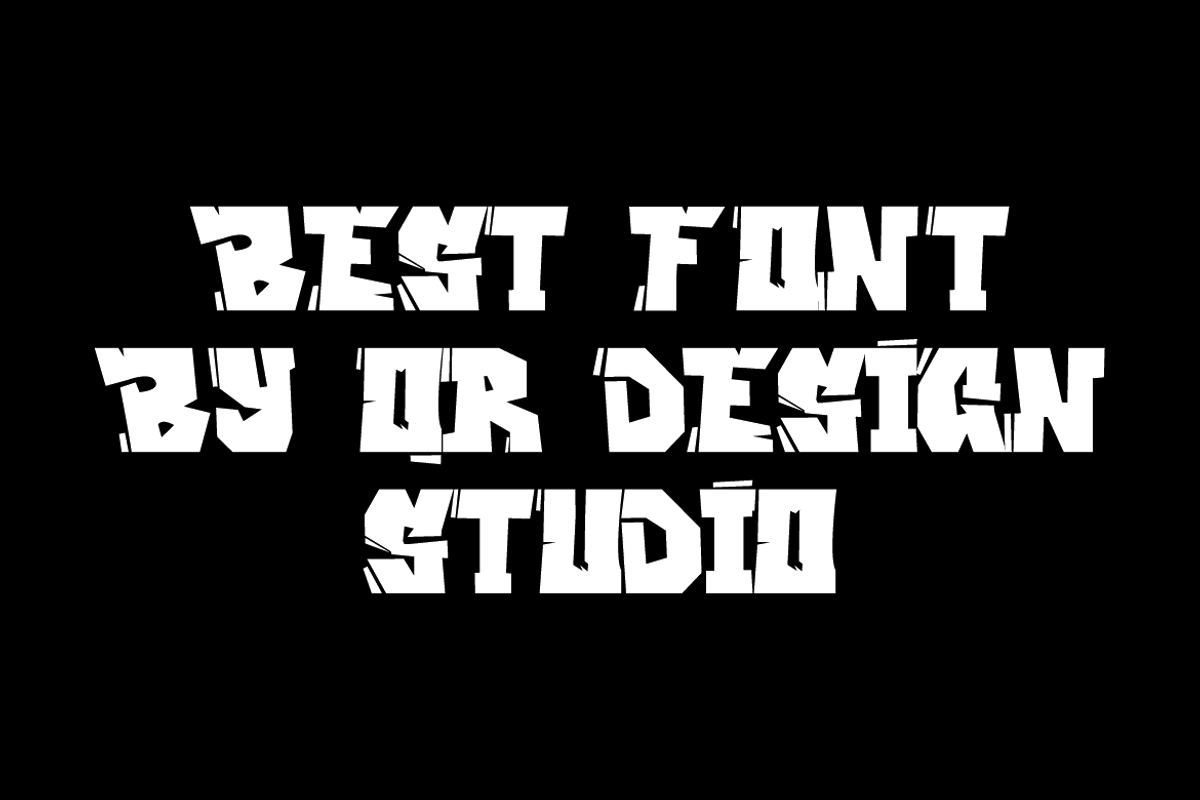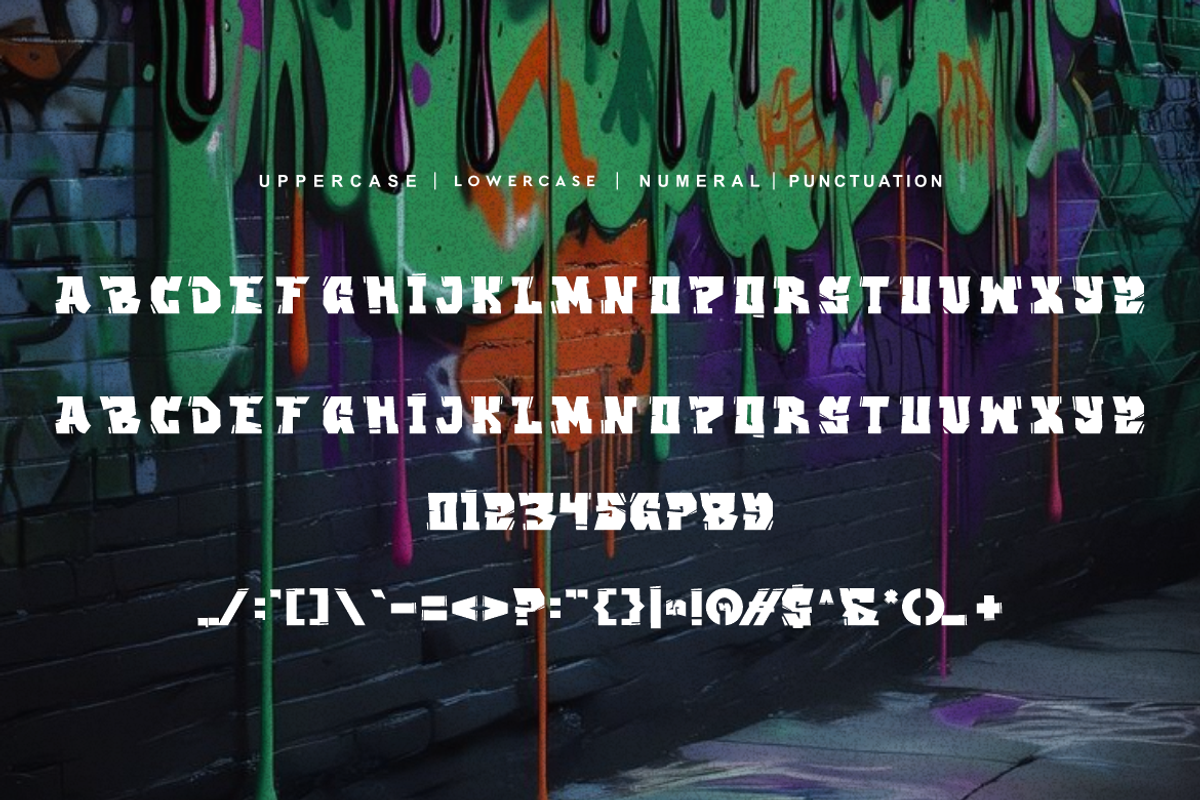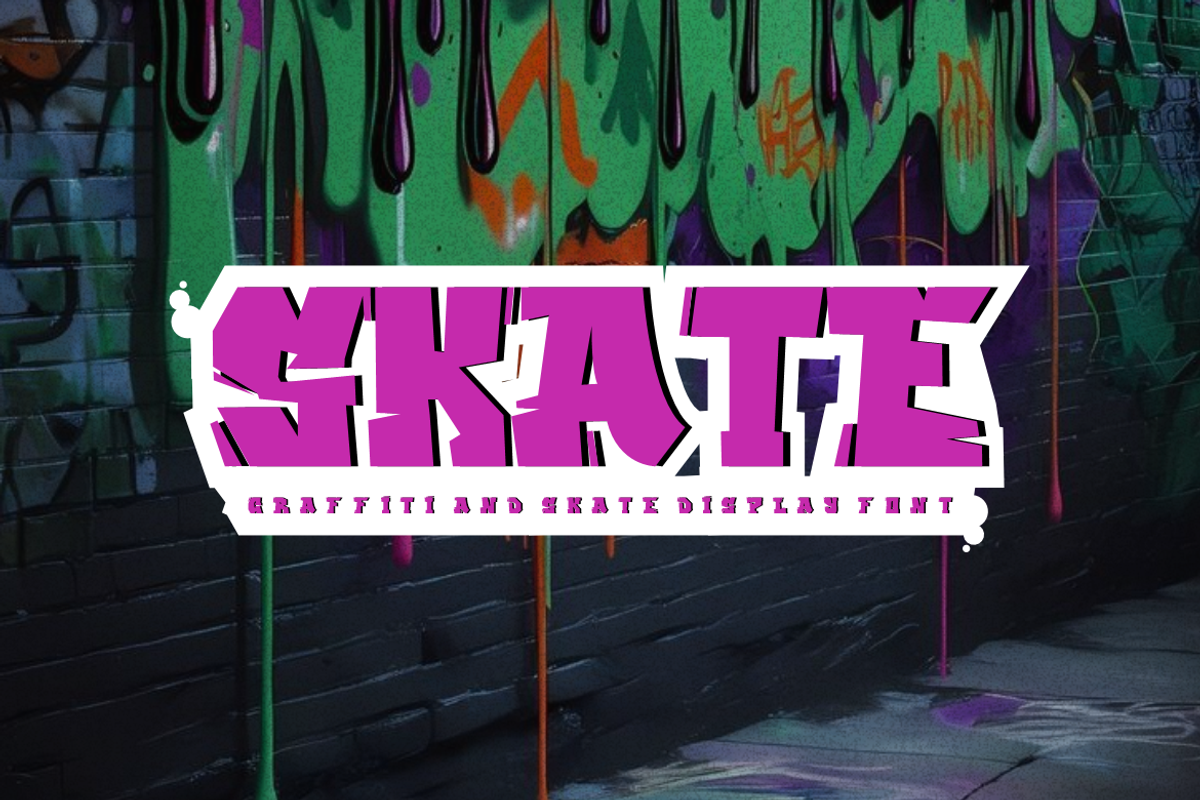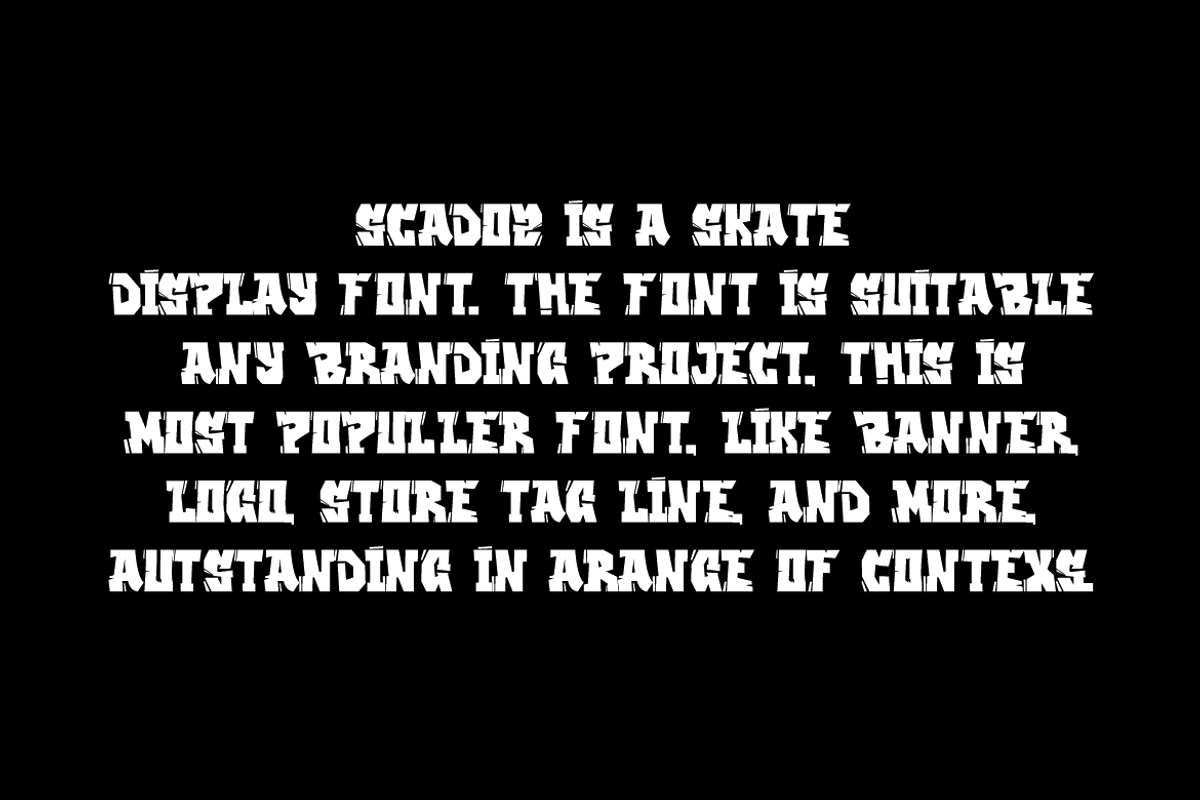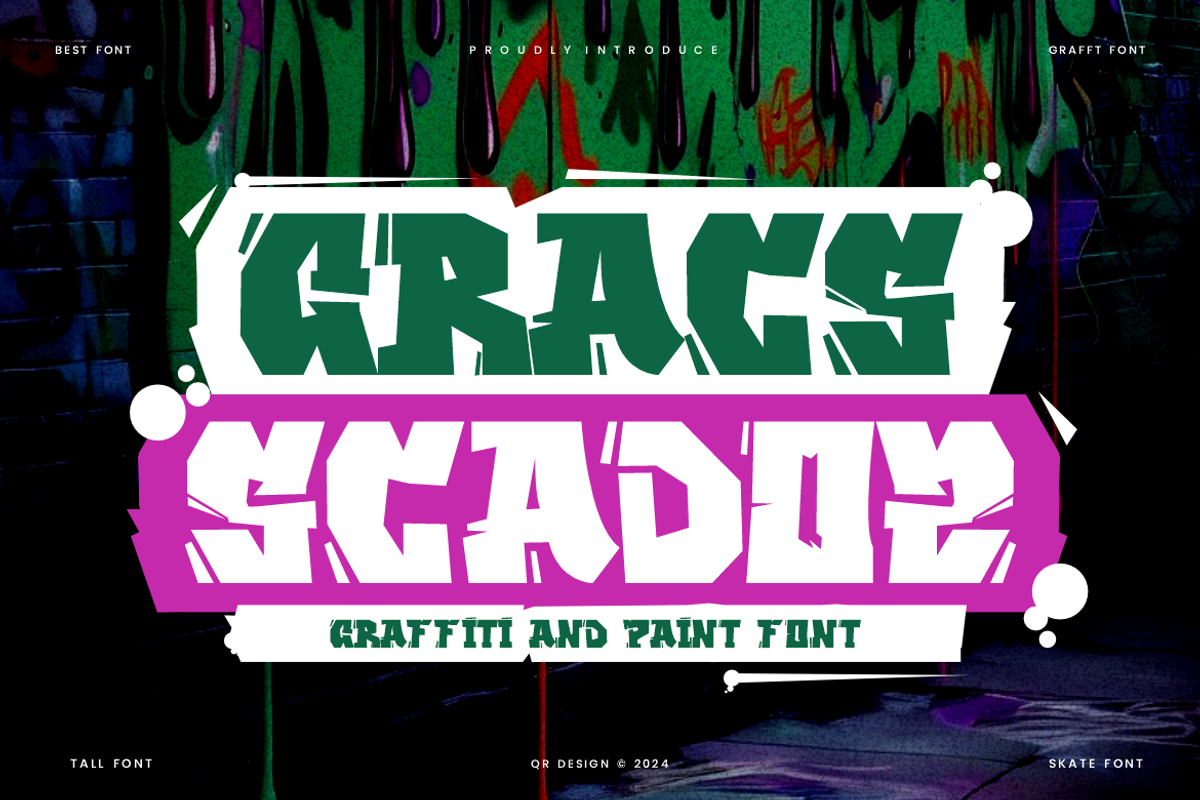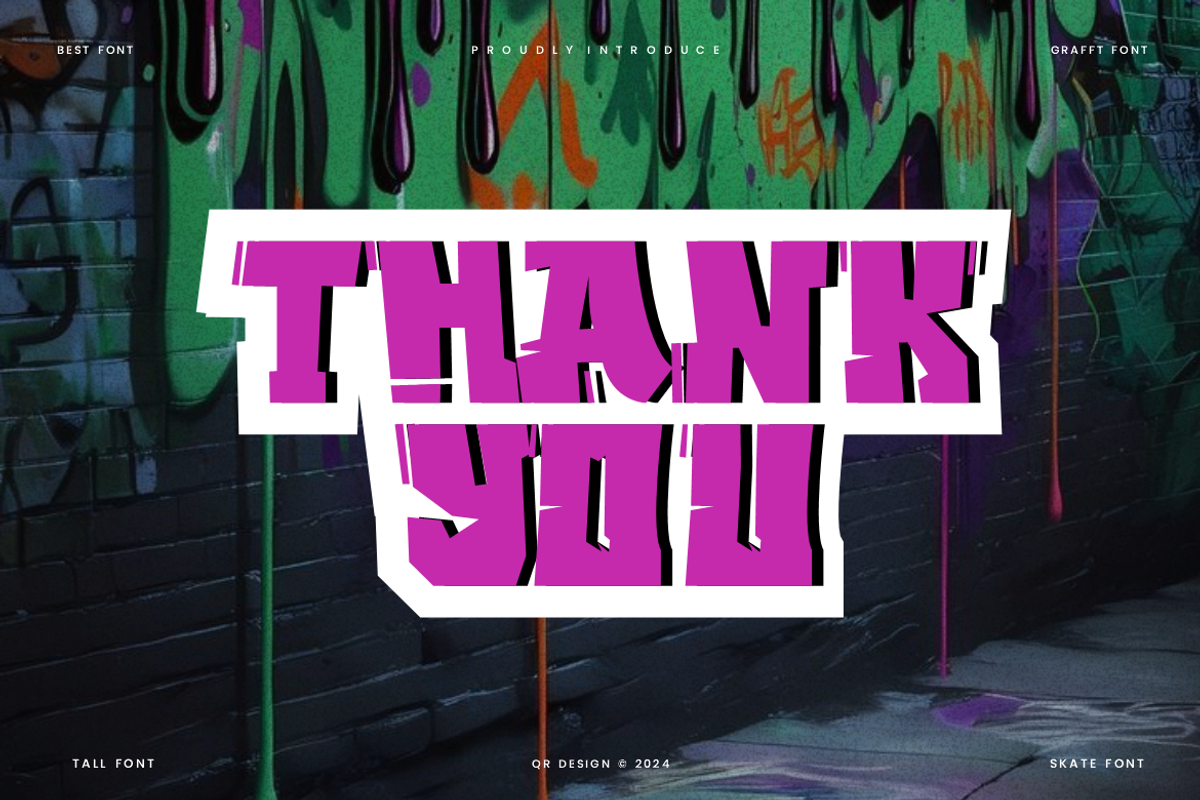
Gracs Scadoz - Graffiti & Paint Font
Gracs Scadoz Font is a paint and authentic display font. The font is suitable for any branding project like poster, logo, sport, and many more. Outstanding in a wide range of contexts.